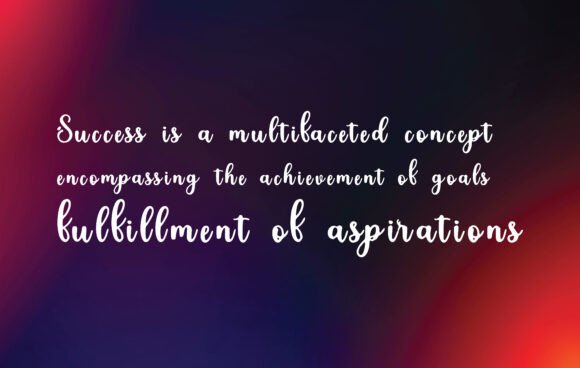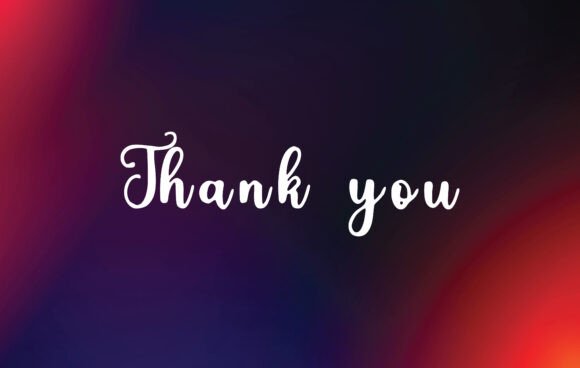
Introducing Corey Font: Elevate Your Creative Projects with Elegance
Are you on the lookout for a font that can add a touch of elegance and sophistication to your creative projects? Look no further than Corey Font, a lovely and beautiful handwritten font that has the potential to take your ideas to the highest level. In this article, we’ll dive into the features and benefits of Corey Font, and explore how it can be the perfect choice for designers and crafters looking to create eye-catching logos, branding, and quotes.
The Beauty of Corey Font
Corey Font is a stunning handwritten font that exudes elegance and refinement. Its beautiful, flowing script is perfect for adding a touch of sophistication to any design project. Whether you’re creating a logo, branding materials, or quotes, Corey Font is sure to make your work stand out. The font’s unique and distinctive style is sure to capture the attention of your audience, making it an excellent choice for designers and crafters looking to make a lasting impression.
Key Features of Corey Font
- Handwritten Script: Corey Font features a beautiful, handwritten script that adds a touch of elegance and sophistication to any design project.
- Elegant and Refined: The font’s elegant and refined style makes it perfect for creating high-end branding, logos, and quotes.
- Unique and Distinctive: Corey Font’s unique and distinctive style ensures that your design projects will stand out from the crowd.
- Versatile: The font is versatile and can be used for a wide range of design projects, from logos and branding to quotes and more.
Benefits of Using Corey Font
So, why choose Corey Font for your design projects? Here are just a few benefits of using this beautiful font:
- Instant Recognition: Corey Font’s unique and distinctive style ensures that your design projects will be instantly recognizable.
- Professional Look and Feel: The font’s elegant and refined style gives your design projects a professional look and feel.
- Easy to Read: Despite its elegant style, Corey Font is easy to read, making it perfect for use in quotes, logos, and branding materials.
- Customizable: The font is customizable, allowing you to adjust the size, color, and style to suit your design needs.
How to Use Corey Font in Your Design Projects
Using Corey Font in your design projects is easy. Here are a few tips to get you started:
- Logos: Use Corey Font to create stunning logos that showcase your brand’s personality and style.
- Branding: The font is perfect for creating branding materials, such as business cards, letterheads, and more.
- Quotes: Add a touch of elegance to your quotes with Corey Font, making them perfect for social media, posters, and more.
- Digital and Print Materials: Use the font in a wide range of digital and print materials, from brochures and flyers to website headers and more.
In conclusion, Corey Font is a beautiful and elegant handwritten font that has the potential to take your creative projects to the highest level. Its unique and distinctive style, combined with its versatility and ease of use, make it the perfect choice for designers and crafters looking to create eye-catching logos, branding, and quotes. Whether you’re looking to add a touch of sophistication to your design projects or create a lasting impression, Corey Font is an excellent choice.